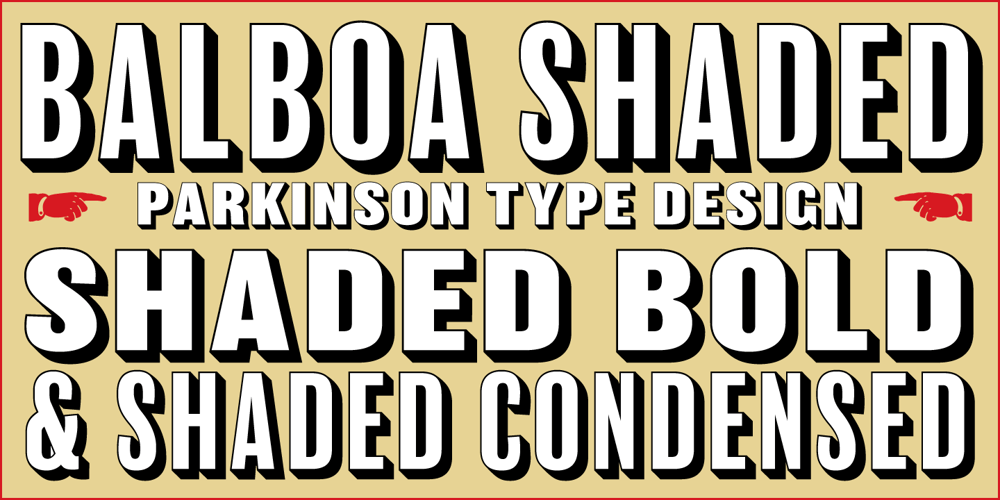
Balboa Shaded Font Family was designed by Jim Parkinson and published by Parkinson. Balboa Shaded contains 2 styles and family package options. Originally released as a Type 1 font, Balboa Shaded was refreshed (version2) and re-released as simple Open Type in 2013. Balboa is a contemporary display design. It draws elements and details from 19th-century British san serifs.